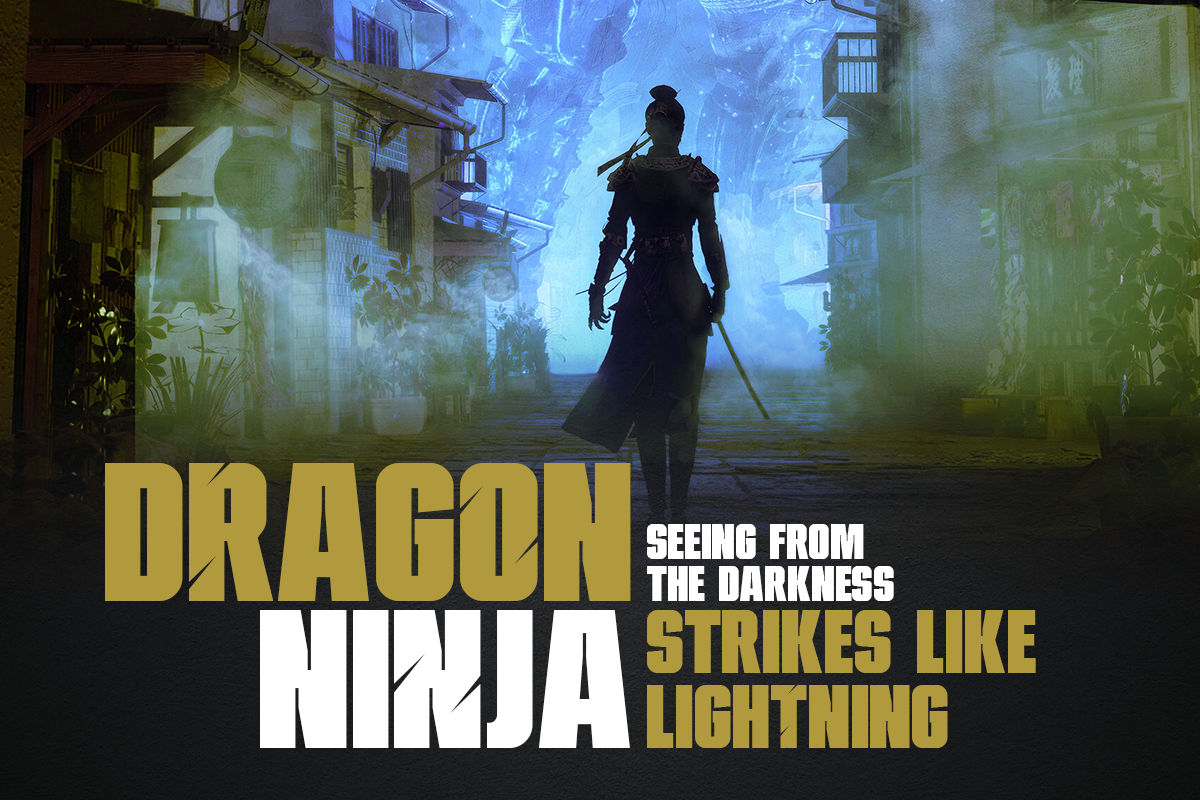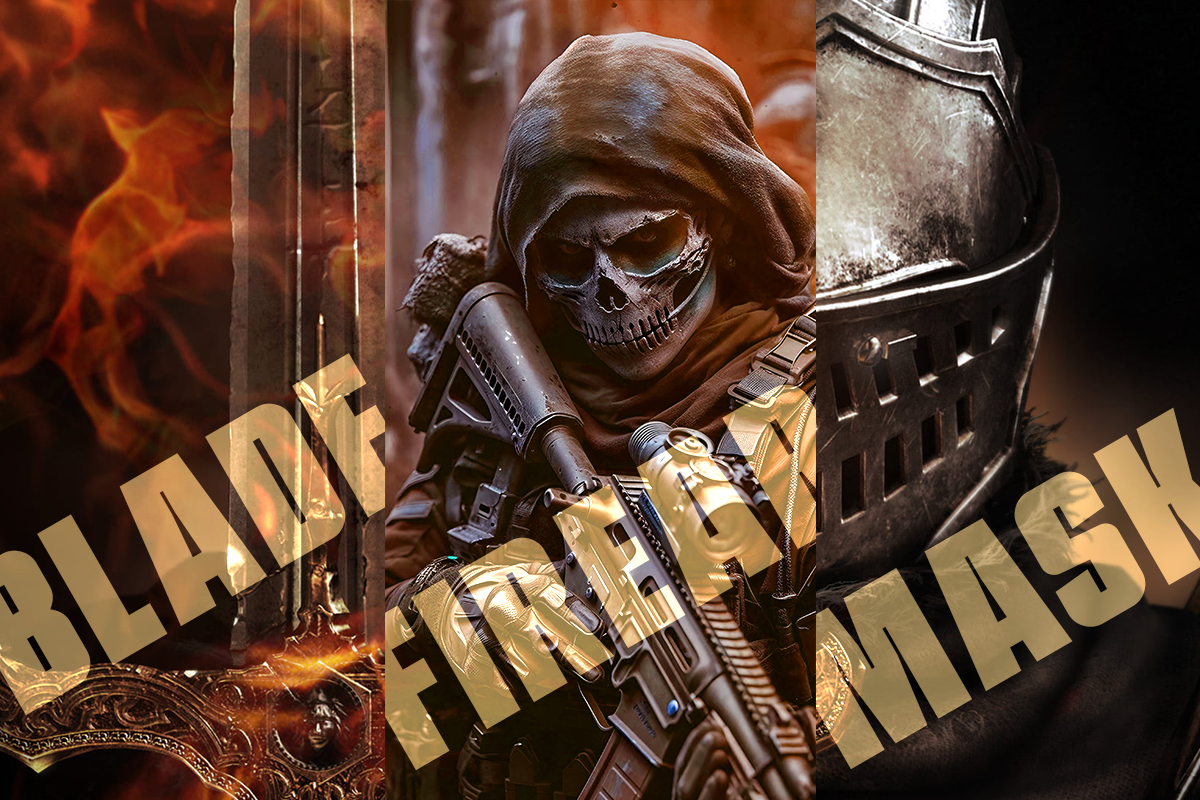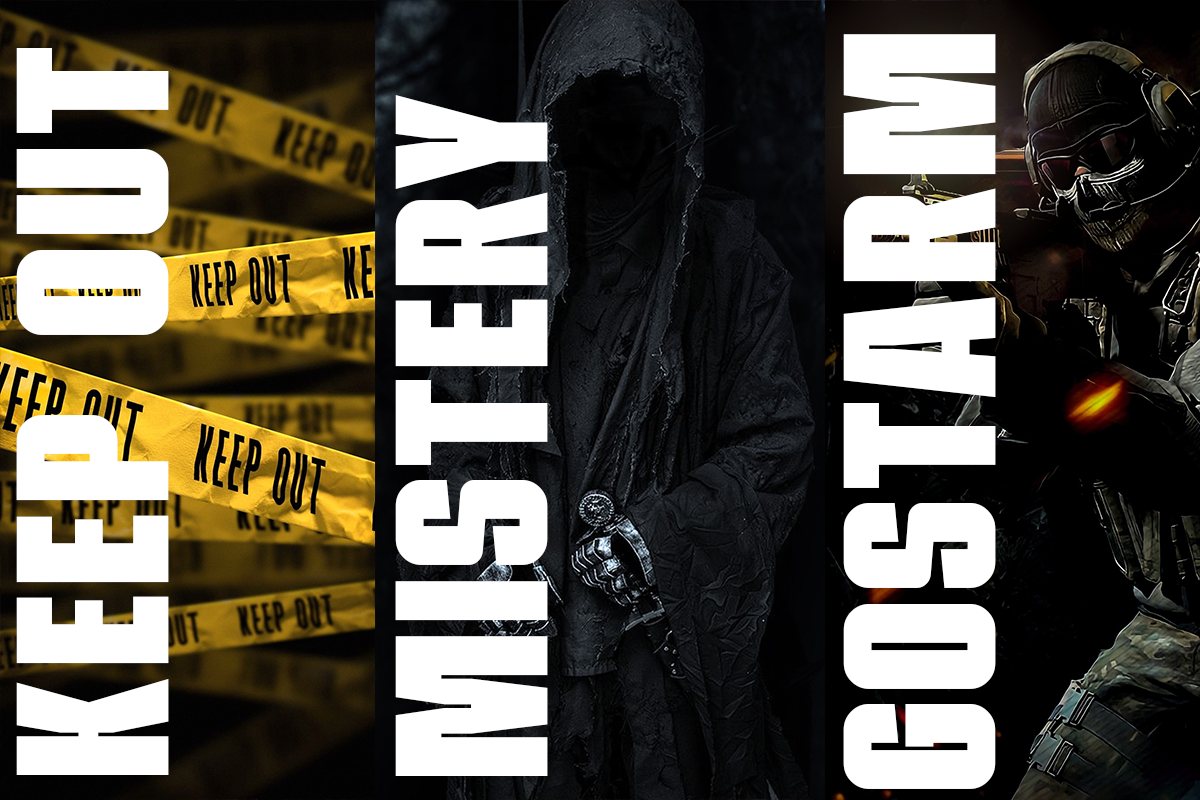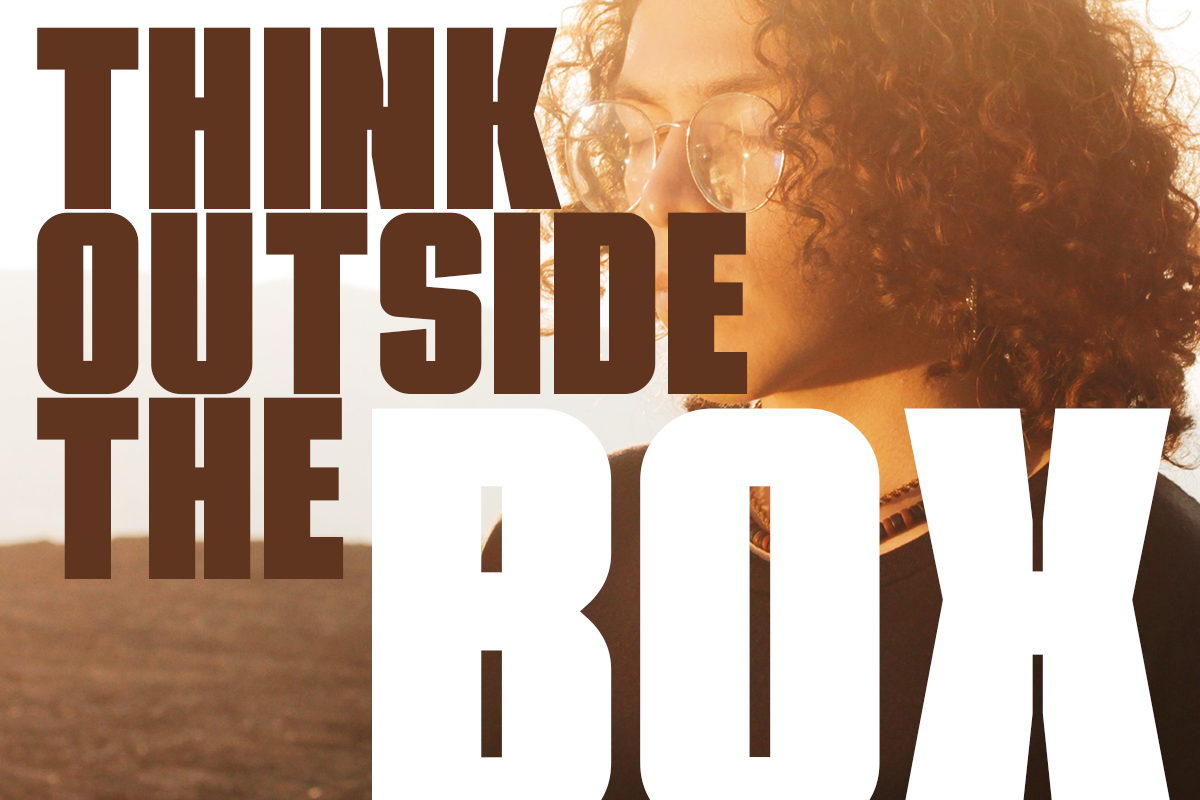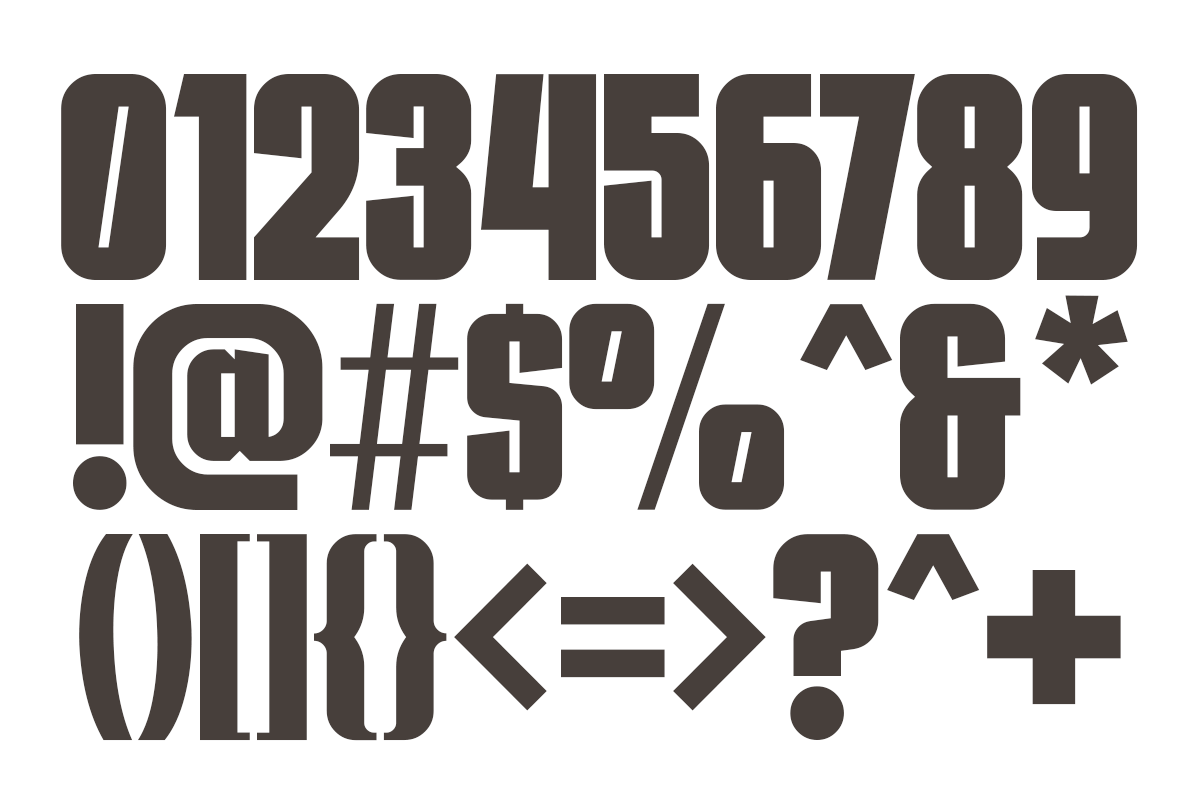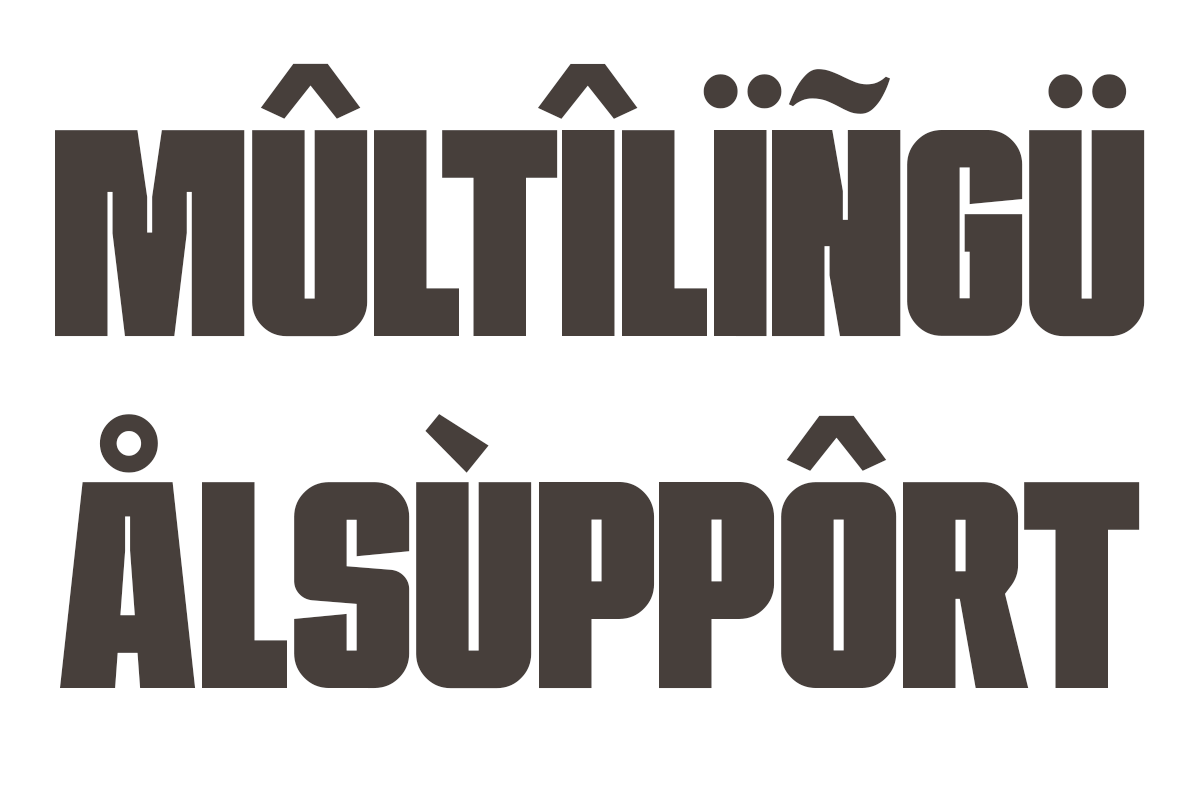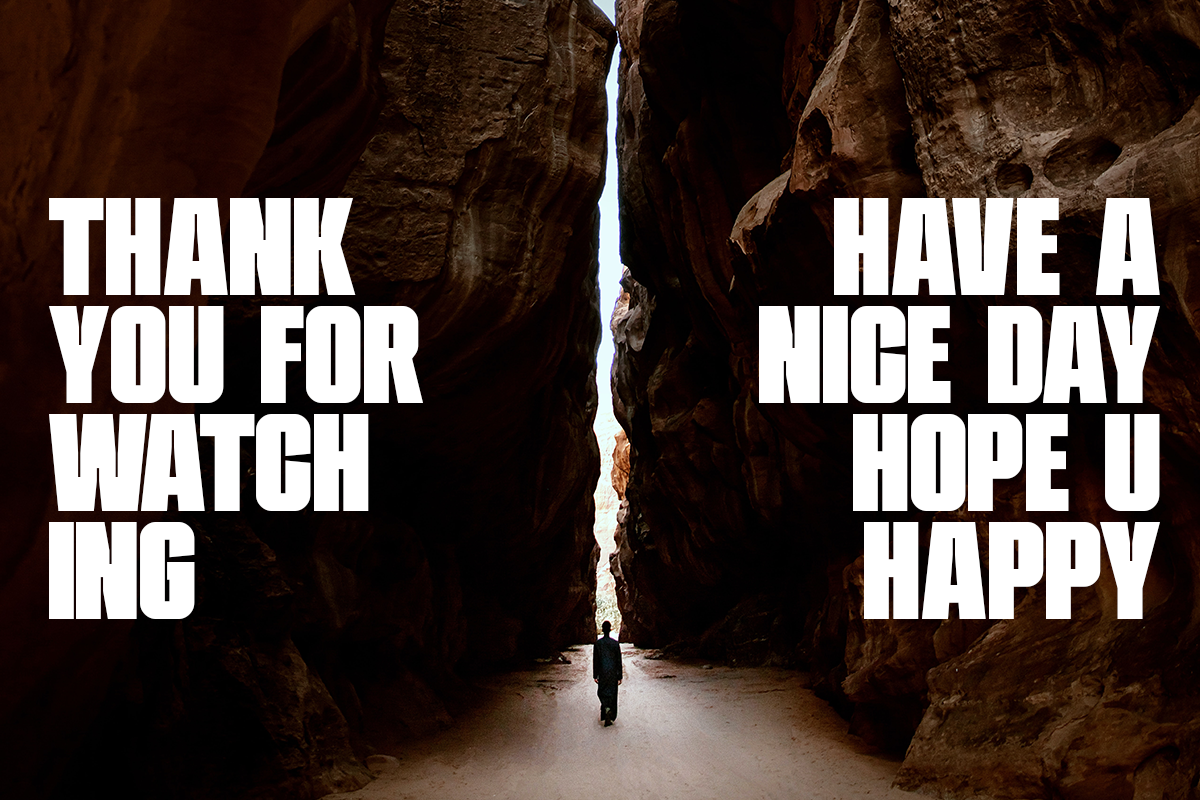
Survivel Modern Display Font Film is a new creation that comes with a cool and simple style with a thick modern font feel. This font is one of those fonts that give you options for people interested in using a varsity font. Survivel Modern Display Font Film has a distinctive feature, without additional letters in it. It is an easy-to-read font that makes it easy to distinguish individual letters. This font is visible when printed in small or large font sizes. Survivel Modern Display Font Film is the best font for many things. This font can be part of product branding. Stable Elegant Display Font will look simple and elegant when combined with several things like clothing, posters, and banners. Survivel Modern Display Font Film can be used for magazine covers and online magazines. Survivel Modern Display Font Film is a subclass of modern varsity fonts that are used for greeting cards and screen printing. These types of fonts can be digital fonts and print fonts. The font impression must be complemented by the right theme and colors. Also, it must be used in the proper font size. Our display font collection is compatible to use as Figma fonts, Canva fonts, Freepik Fonts, and Adobe Fonts. They also work as Windows Fonts and Apple Fonts. For your social media needs, you can use and install fonts in our Sans Serif font collection to use as Instagram Fonts, Facebook Fonts, and Twitter Fonts.